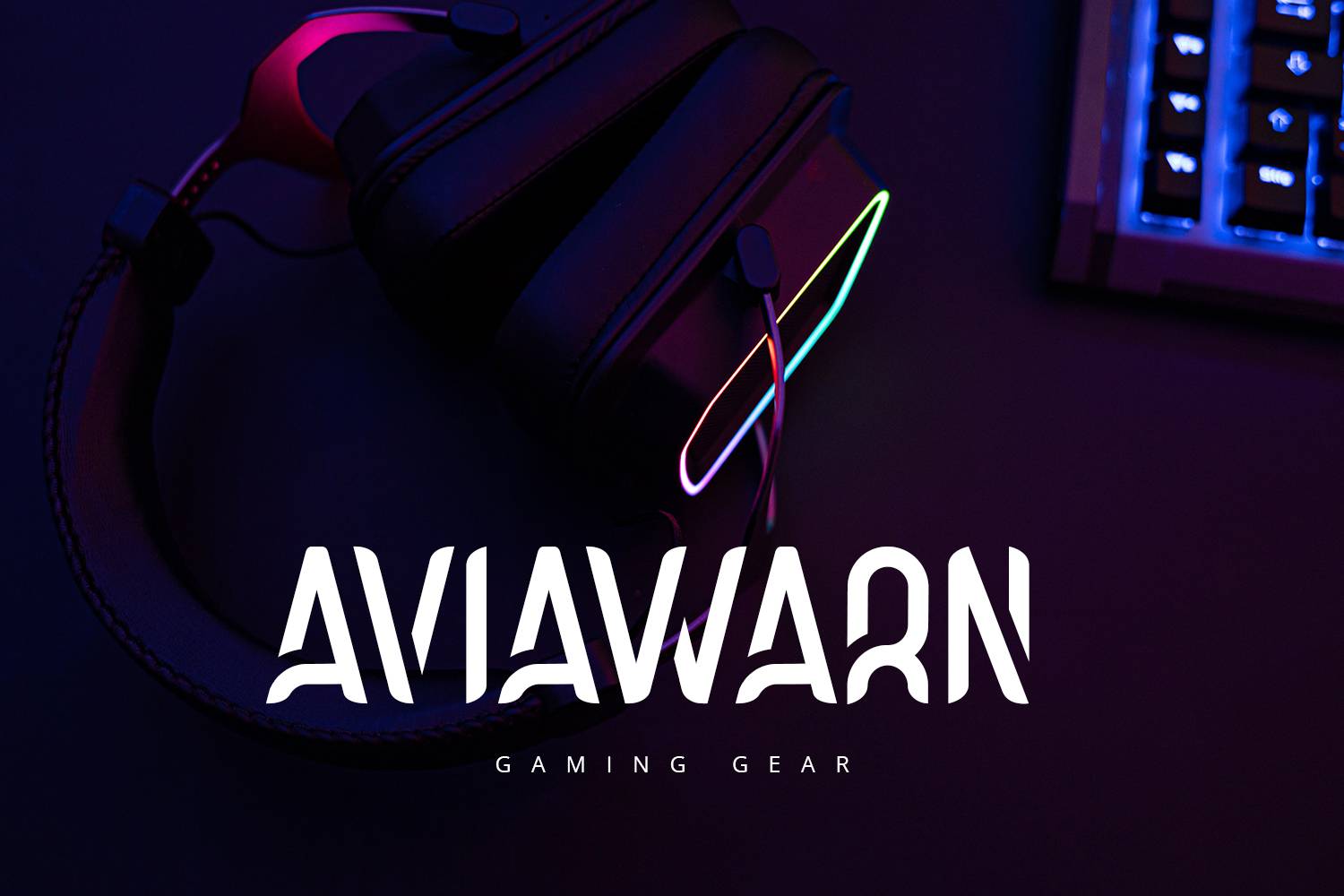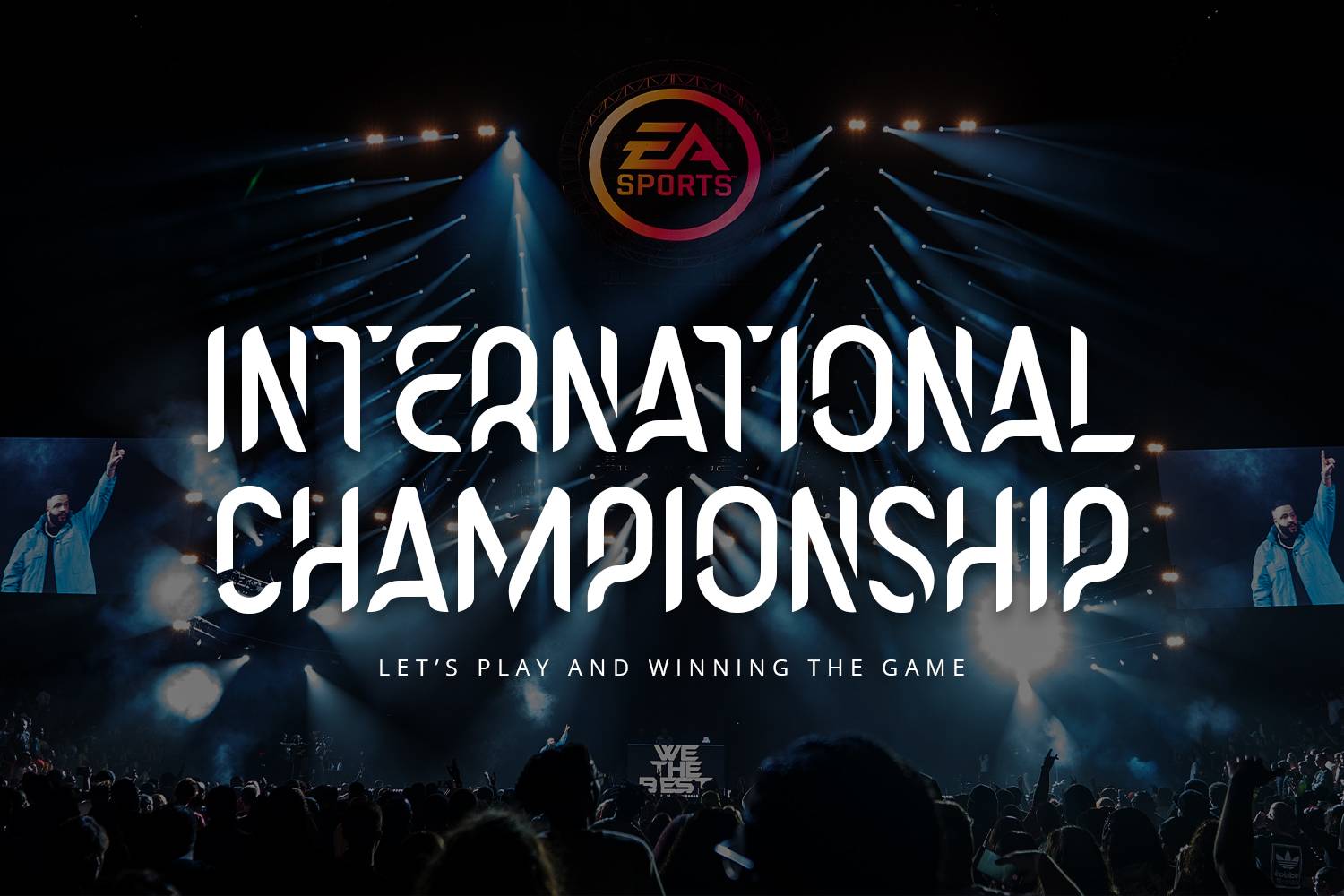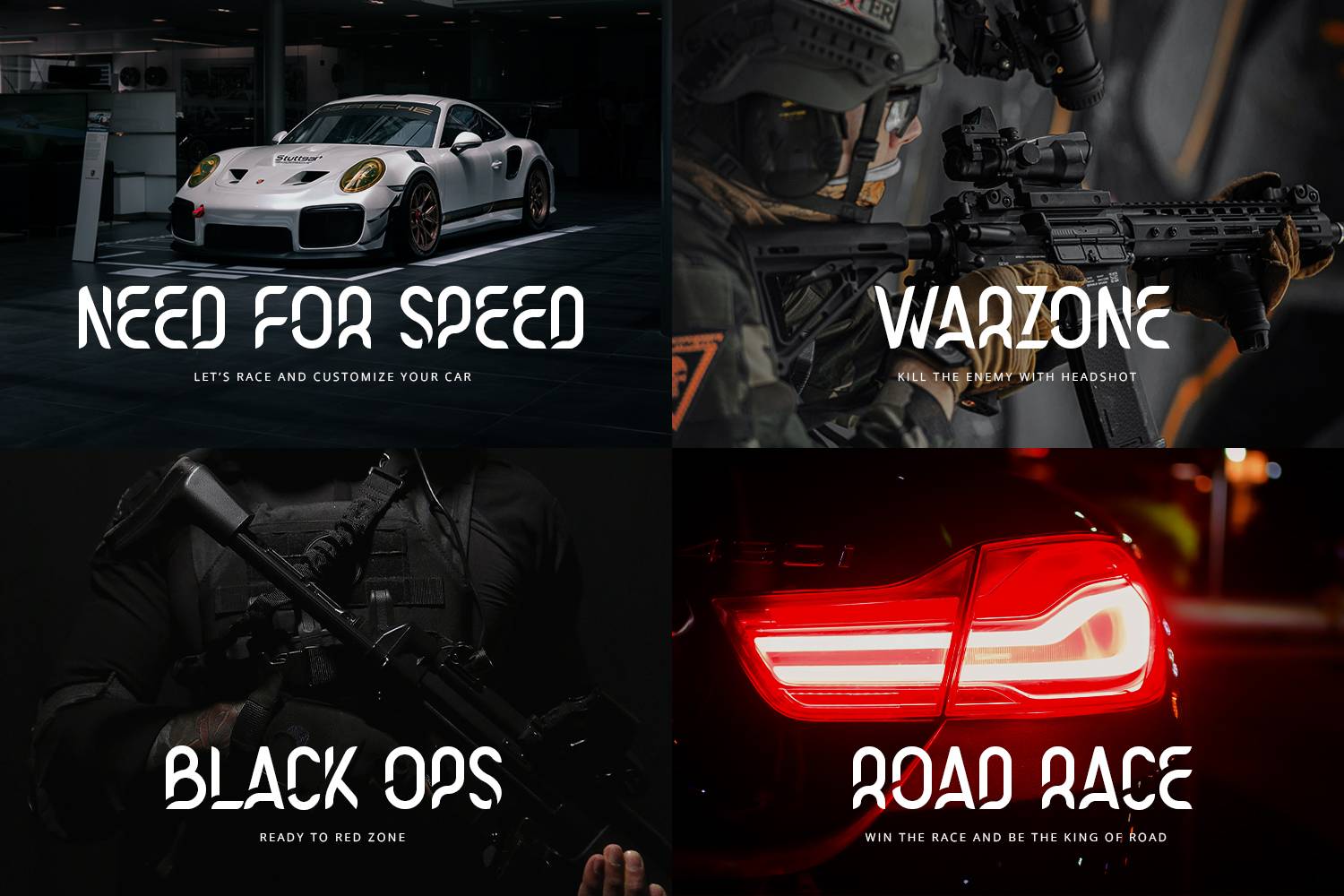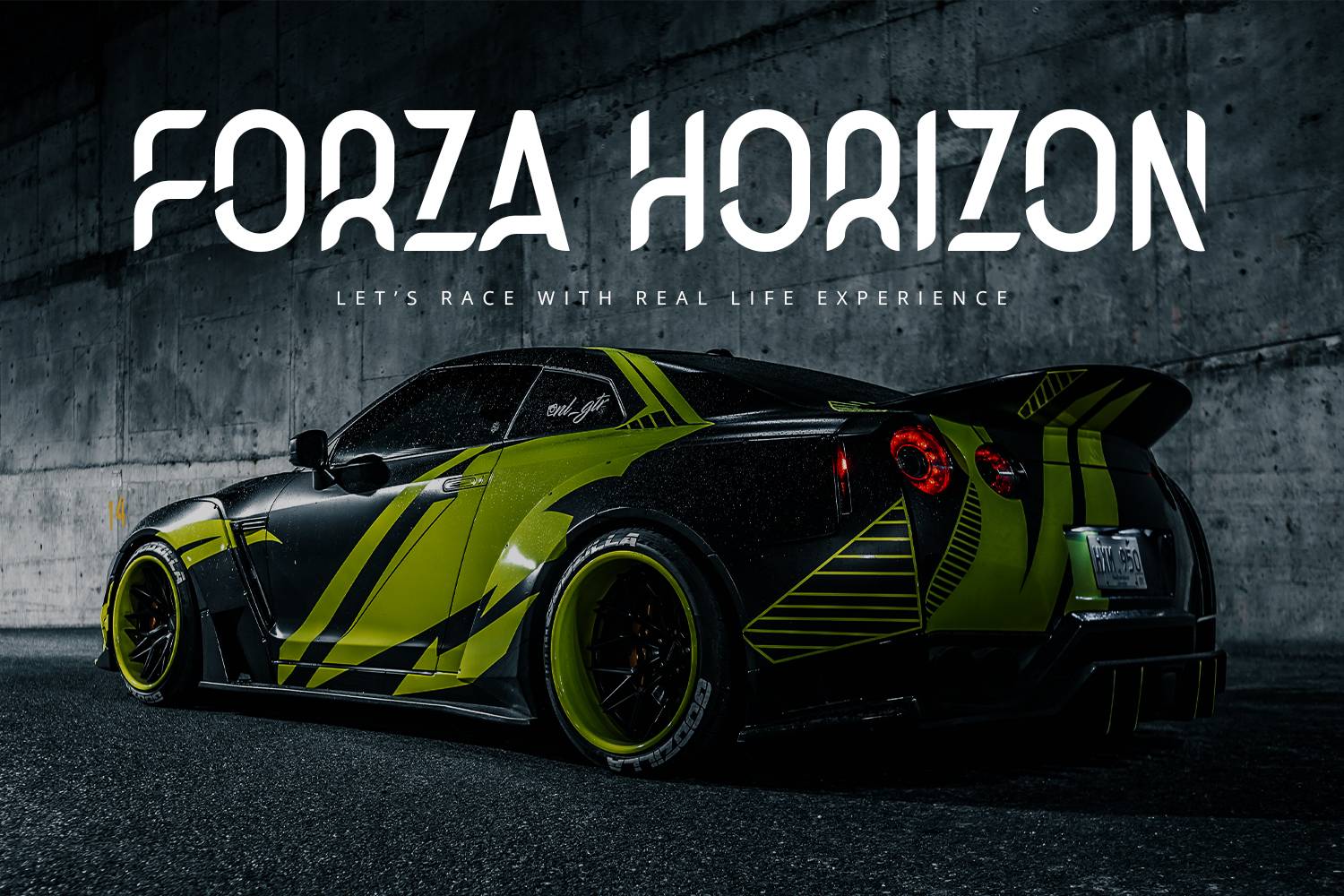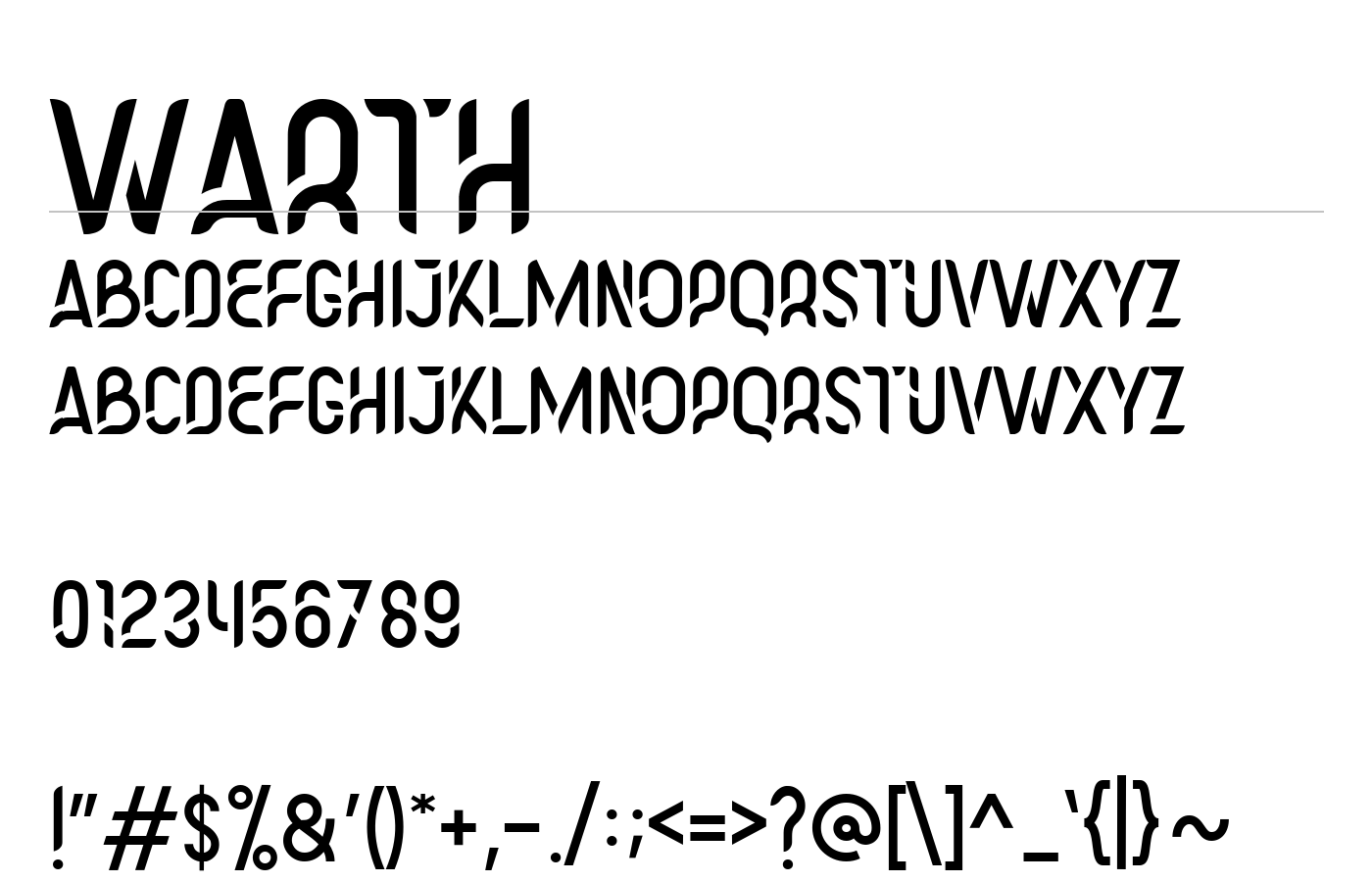
Warth is a bold, condensed sans serif font with a modern and futuristic feel, characterized by its unique cut-out details and sharp, geometric shapes. Its high contrast between thick and thin strokes, along with stylized letterforms, makes it stand out for creative headlines, branding, and editorial projects that seek a distinctive, edgy personality. This font works well for fashion, tech, and innovative design contexts where grabbing attention with a sleek, modern look is key.
Warth Font
About Warth Font